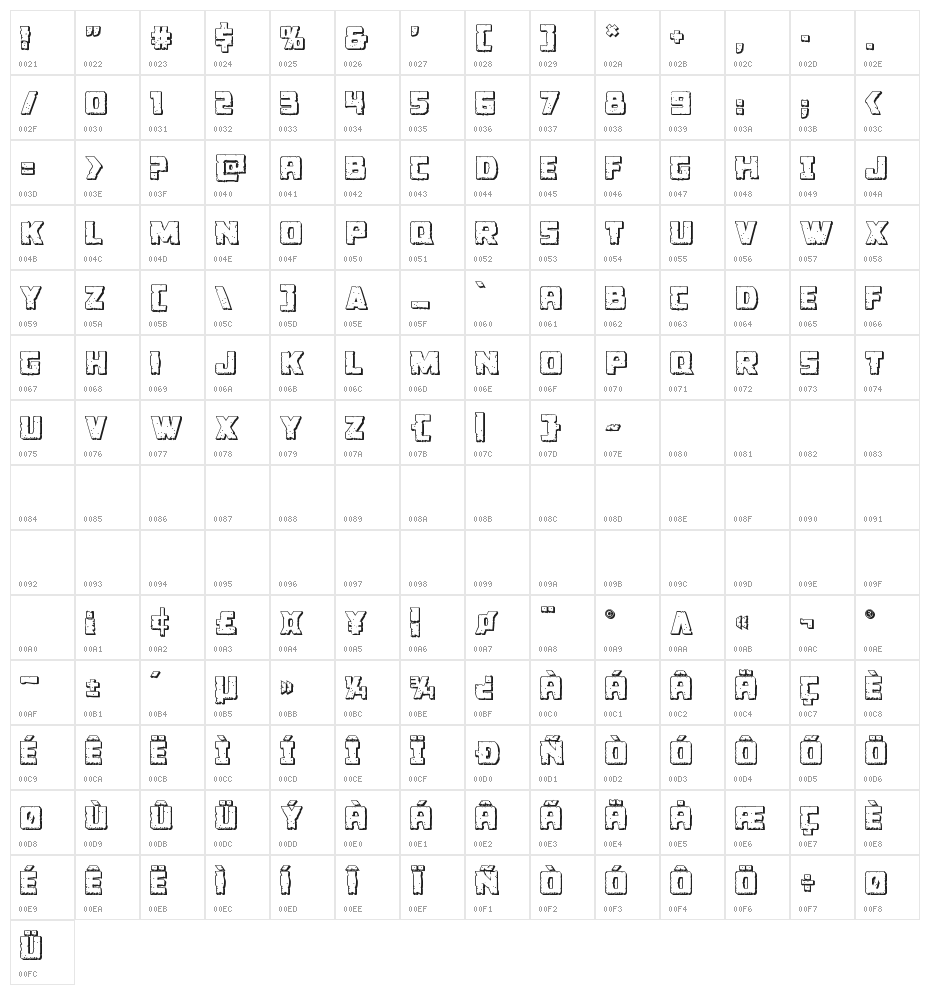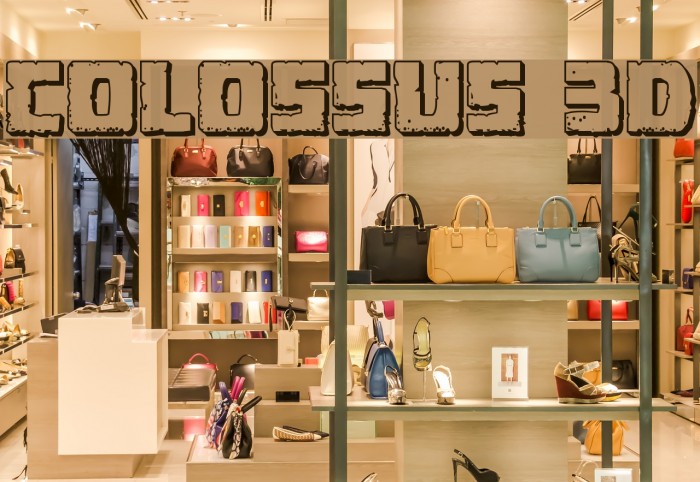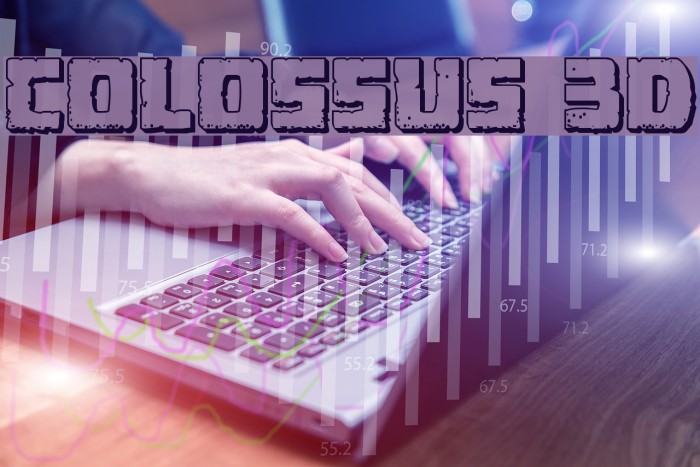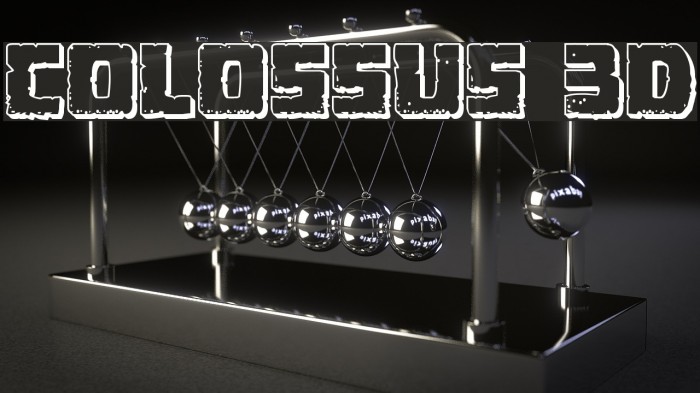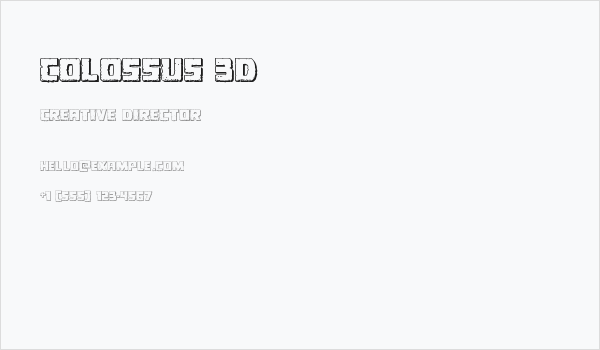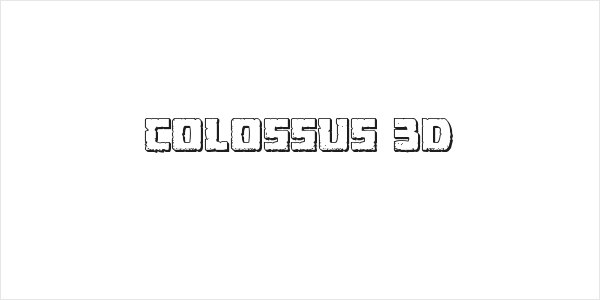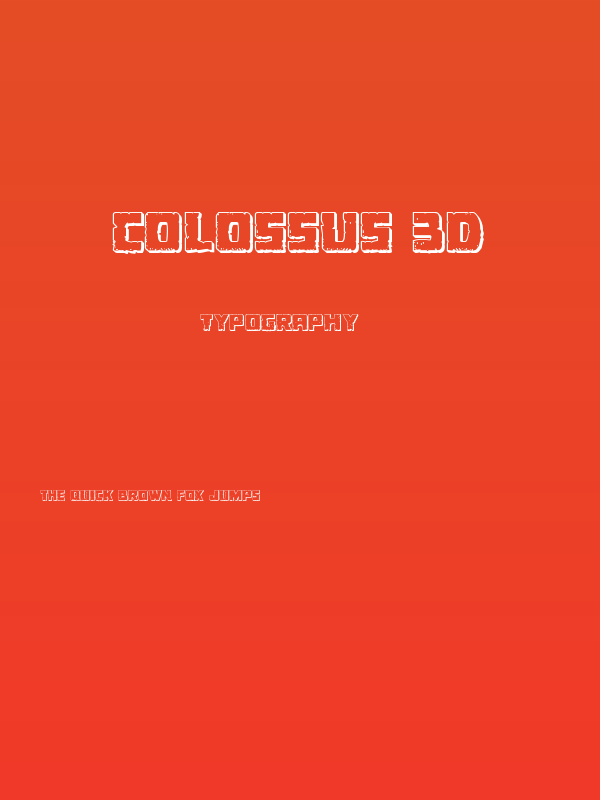
Colossus 3D Font
Colossus 3D Description
This font features a bold, three-dimensional appearance with a rugged, textured surface that gives it a distressed look. The characters are blocky and robust, with a strong presence that makes them stand out. The edges are slightly rough, adding to the overall gritty aesthetic. This style is reminiscent of industrial or mechanical themes, making it suitable for designs that require a bold statement. The font maintains consistent proportions across all characters, ensuring readability while still delivering a unique visual impact.
| Overall Style | Industrial, Bold, Textured |
| Proposed Projects | Ideal for posters, video game titles, branding for industrial products, or any project needing a strong, impactful typeface. |